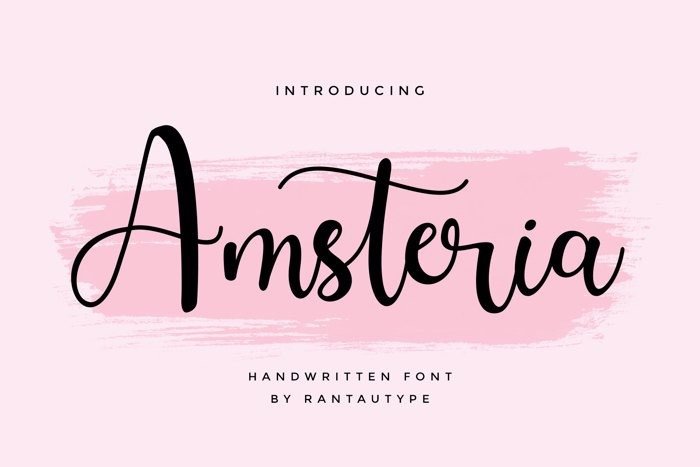
Amsteria Calligraphy Font is mazing hand lettering look attractive and natural! Every single letters have been carefully crafted to make your text looks beautiful. Made from font designer named Rantautype.
This font is suitable for invitation, branding, advertising, poster design etc, and also this font is PUA encoded so all characters are accessible via Character Map, Font Book, or the font management program of your choice.